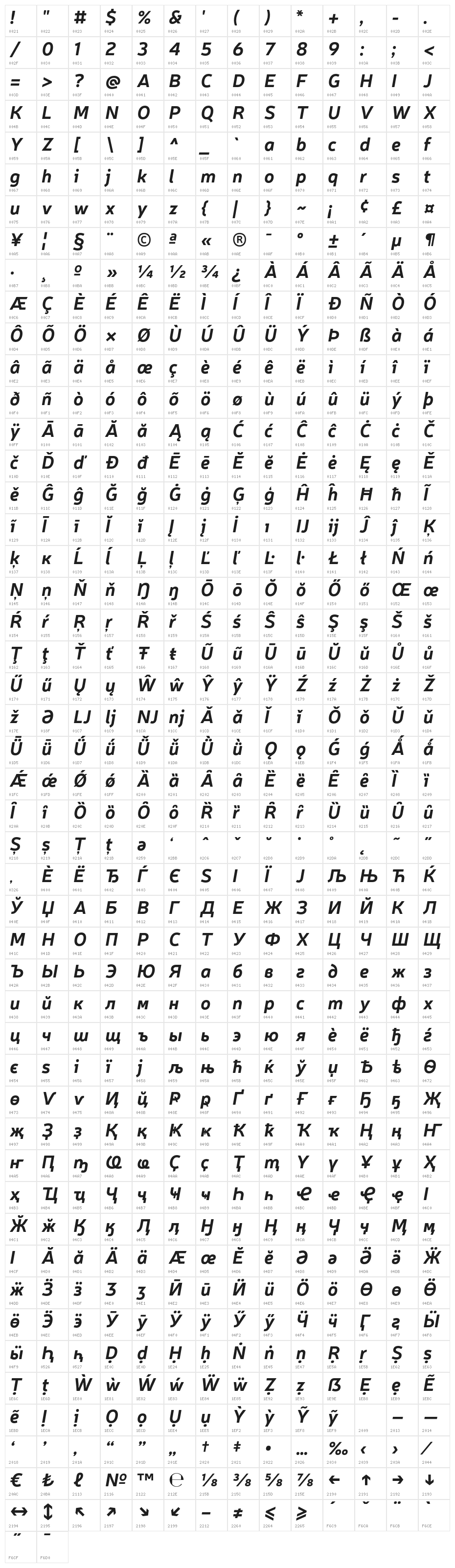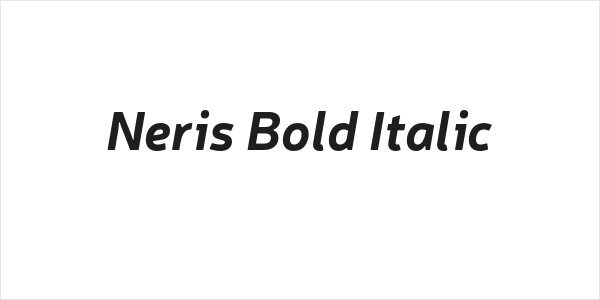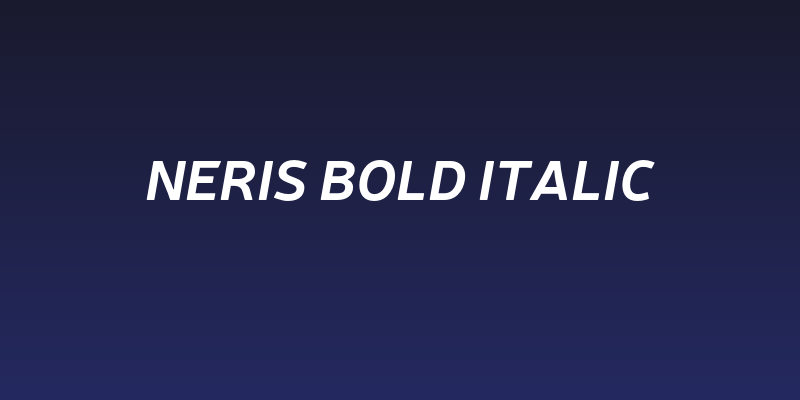
Neris Bold Italic Font
Neris Bold Italic Description
This font exhibits a modern and sleek design with a bold and italicized style. The characters are slightly slanted, giving a dynamic and forward-moving appearance. The strokes are consistent and smooth, contributing to a clean and professional look. The uppercase and lowercase letters are well-proportioned, and the numerals are clear and easily distinguishable. Special characters are designed with the same attention to detail, ensuring uniformity across the font. The overall aesthetic is contemporary, making it suitable for a variety of digital and print applications.
| Use Case | Headlines, Logos, Digital Media |
| Proposed Projects | Ideal for branding, advertising, headlines, and digital media projects that require a modern and bold statement. |